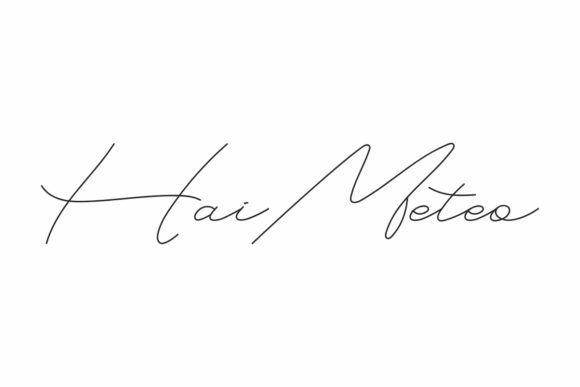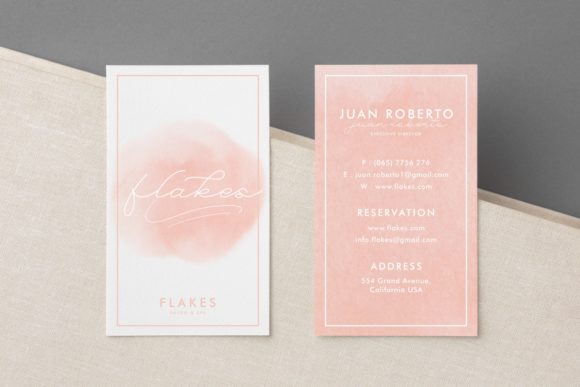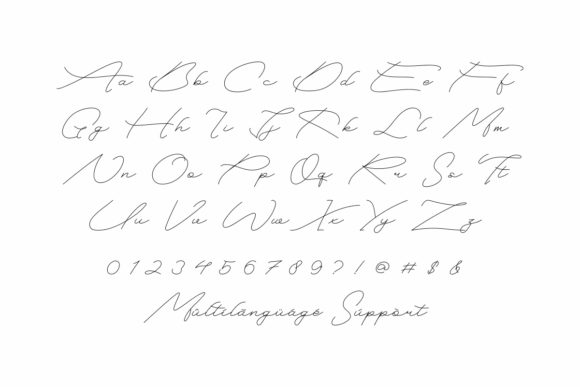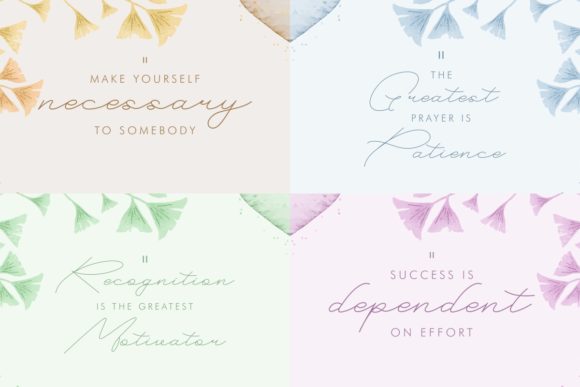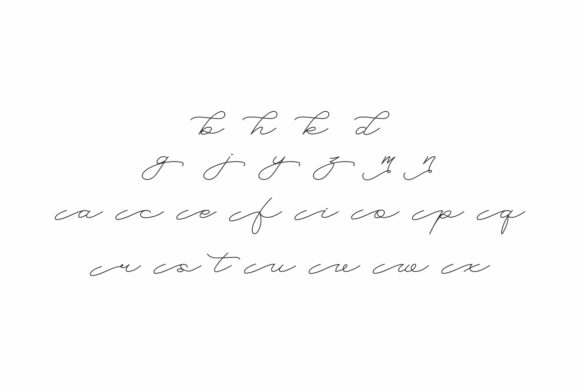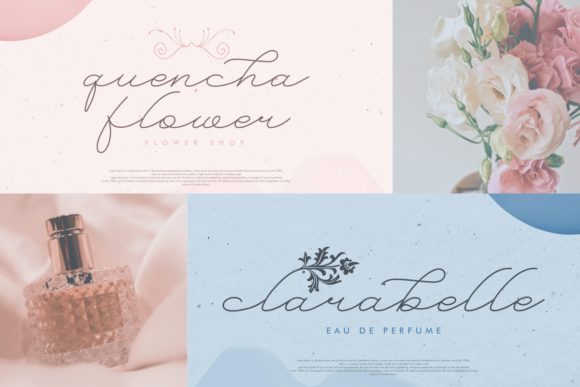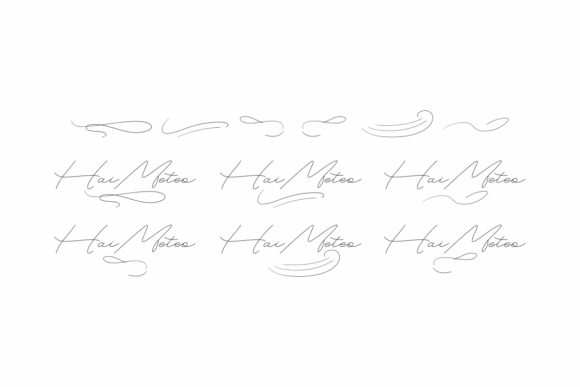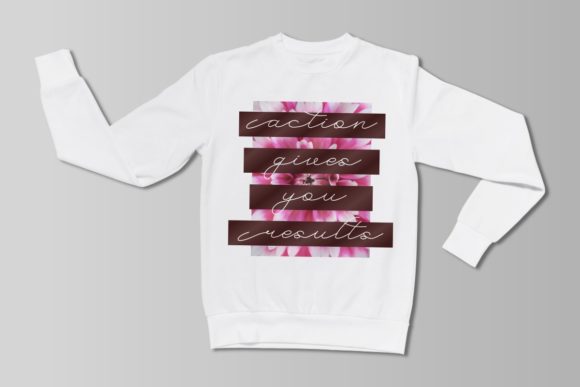
Hai Meteo Font
About Hai Meteo Font
Introducing Hai Meteo, a thin and delicate handwritten font that brings a touch of realism and elegance to your designs. With its graceful and refined letterforms, Hai Meteo is perfect for adding a sophisticated and artistic flair to your projects.
Whether you’re designing logos, branding materials, invitations, cards, social media posts, or any other creative endeavor, Hai Meteo will elevate your ideas and make them truly stand out. The thin strokes and delicate curves of the font create a sense of grace and finesse, giving your designs a realistic and handcrafted feel.
Hai Meteo’s versatility allows it to shine in various design contexts. Its refined and delicate appearance makes it well-suited for projects that require a touch of elegance and sophistication. From luxury brands to wedding invitations, Hai Meteo adds a level of refinement that enhances the overall aesthetic.
With the PUA encoding feature, accessing all the glyphs and swashes of Hai Meteo is a breeze. This allows you to effortlessly customize and embellish your designs, adding flourishes and decorative elements to create a unique and personalized look. Explore the extensive range of options and unleash your creativity with ease.
The delicate nature of Hai Meteo makes it a perfect choice for projects that require a sense of subtlety and sophistication. Its thin lines and intricate details give your designs a refined and artistic quality that captivates the viewer’s attention. Whether you’re working on typography-based artwork, quotes, or elegant invitations, Hai Meteo will add a touch of beauty and realism.
Incorporate Hai Meteo into your social media graphics to create visually stunning and captivating posts. Its delicate and realistic appearance will make your content stand out in the crowded online space. Whether you’re sharing inspirational quotes, showcasing products, or expressing your creativity, Hai Meteo will add an extra layer of charm to your visual storytelling.
Embrace the beauty and delicacy of Hai Meteo and let it transform your ideas into spectacular designs. Whether you’re aiming for a realistic and artistic look or simply want to add an elegant touch to your projects, Hai Meteo is the perfect choice. Unlock its full potential with the PUA encoding and explore the wide range of possibilities for creating truly remarkable designs.